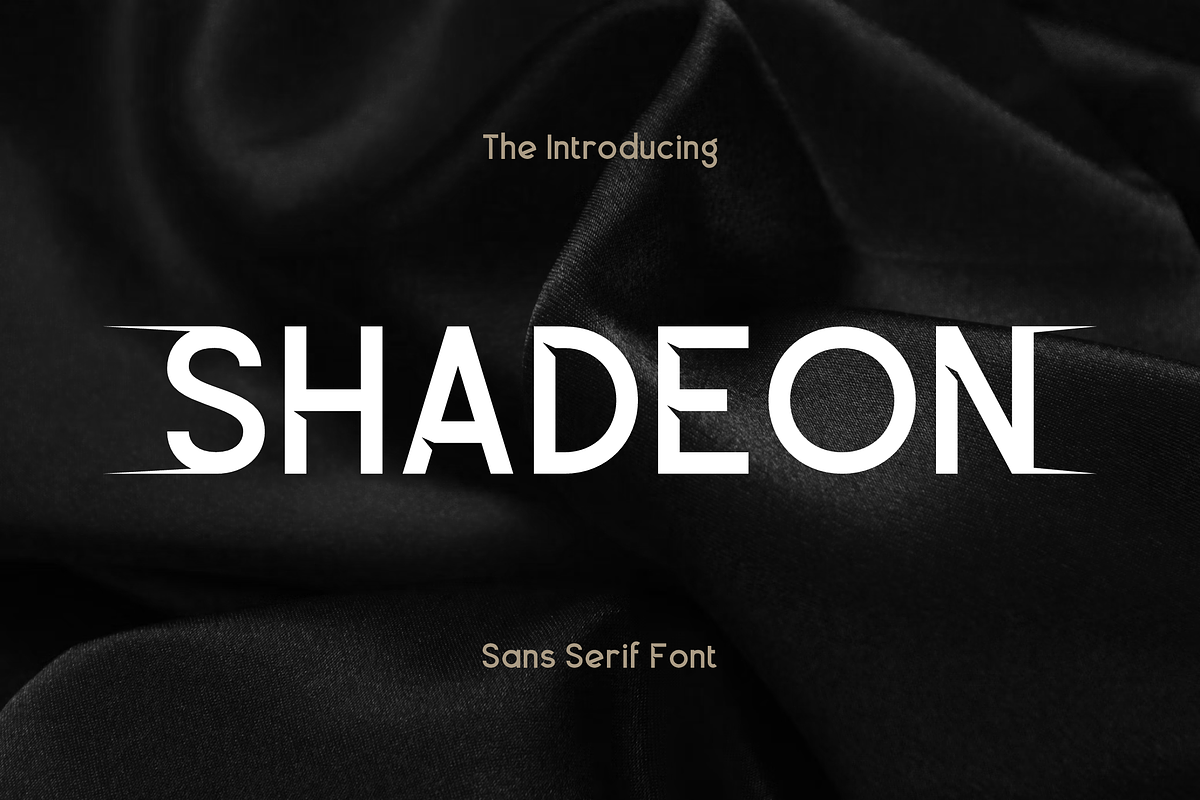
Shadeon Sans Serif Font is perfect for contemporary branding projects, modern logo design, sleek advertising campaigns, sophisticated website typography, cutting-edge packaging materials, progressive business communications, architectural firm branding, tech startup identities, minimalist editorial layouts, professional signage systems, innovative product labeling, and forward-thinking design applications.
Shadeon Sans Serif Font is exciting because it masterfully combines contemporary geometric precision with subtle shadow-inspired details that create dimensional depth and visual sophistication, making typography that feels both modern and timelessly elegant. This exceptional typeface features clean letterforms with carefully crafted shadow elements that add distinctive character without compromising readability or professional appeal. The font's sophisticated aesthetic speaks to audiences who appreciate innovative design, contemporary style, and the perfect balance between simplicity and visual interest that defines modern typography excellence.
Shadeon Sans Serif Font includes comprehensive font families: Regular Shadow Style, Bold Dimensional Weight, Light Subtle Touch, Medium Balanced Format, Italic Dynamic Slant, Condensed Efficient Width, Extended Progressive Format, Ultra Light Version, Black Impact Style, and Special Shadow Symbols, providing complete solutions for modern design needs and contemporary brand communications that demand geometric precision with dimensional sophistication.
This innovative typography solution transforms standard communications into visually striking experiences through its unique shadow aesthetic and contemporary design principles. Shadeon Sans Serif Font Free Download enables designers and modern brands to access premium dimensional typography that instantly adds sophistication, visual depth, and contemporary appeal to any creative project. The font's meticulously engineered proportions ensure perfect readability while maintaining distinctive shadow character and modern precision.
Design agencies, tech companies, and progressive businesses trust Shadeon Sans Serif Font for its ability to communicate innovation, sophistication, and modern excellence to audiences seeking cutting-edge design experiences and contemporary brand interactions. The typeface's dimensional construction performs exceptionally well across various applications, from intimate modern communications to large-scale progressive campaigns. Its extensive character support includes multilingual capabilities and shadow design elements that enhance contemporary brand presentations.
The design philosophy behind Shadeon Sans Serif Font explores the intersection of light and shadow in typography, creating letterforms that demonstrate how subtle dimensional effects can enhance modern design without overwhelming content. This innovation-focused approach creates a font that feels genuinely contemporary while maintaining timeless appeal across different modern contexts and sophisticated brand expressions.
Whether creating tech startup identities, contemporary marketing materials, or cutting-edge design projects, this sans serif font delivers exceptional results that define modern typography standards. Download Shadeon Sans Serif Font today and discover how premium dimensional typography can transform your design projects into sophisticated expressions of contemporary innovation, visual depth, and the modern elegance that shapes today's most influential design communications and brand experiences.